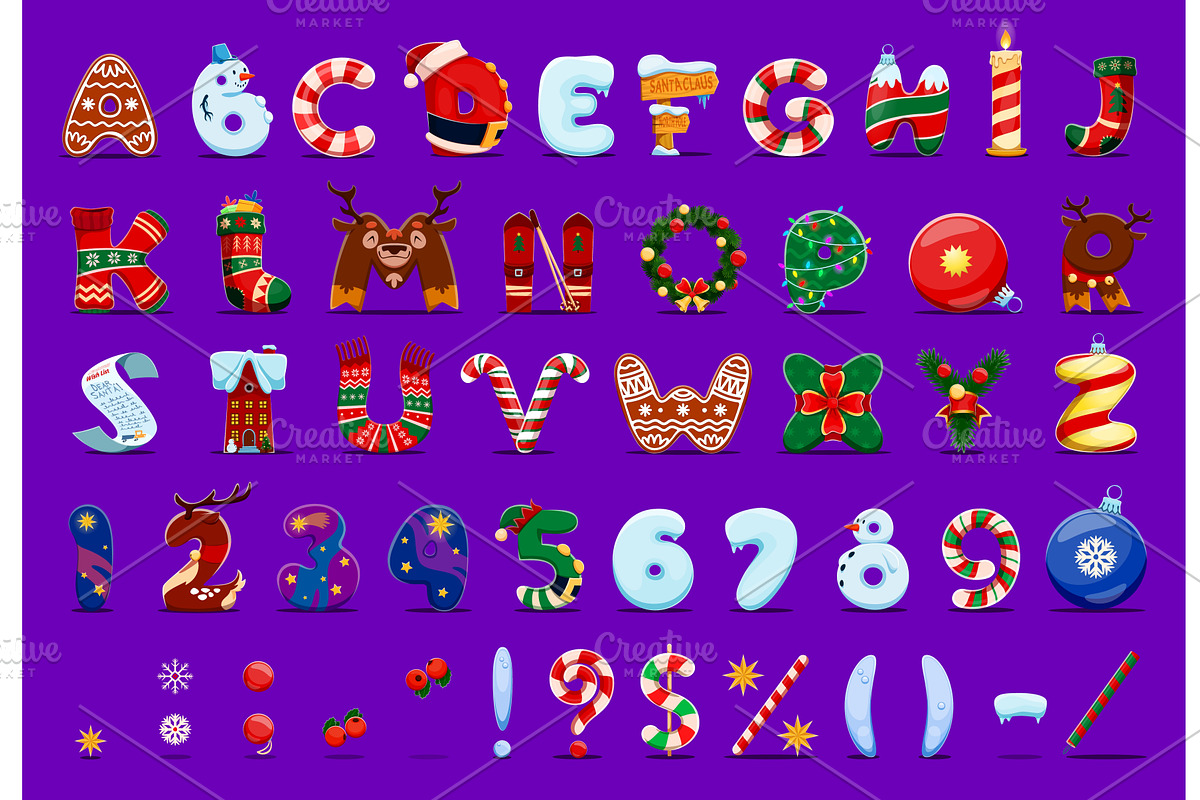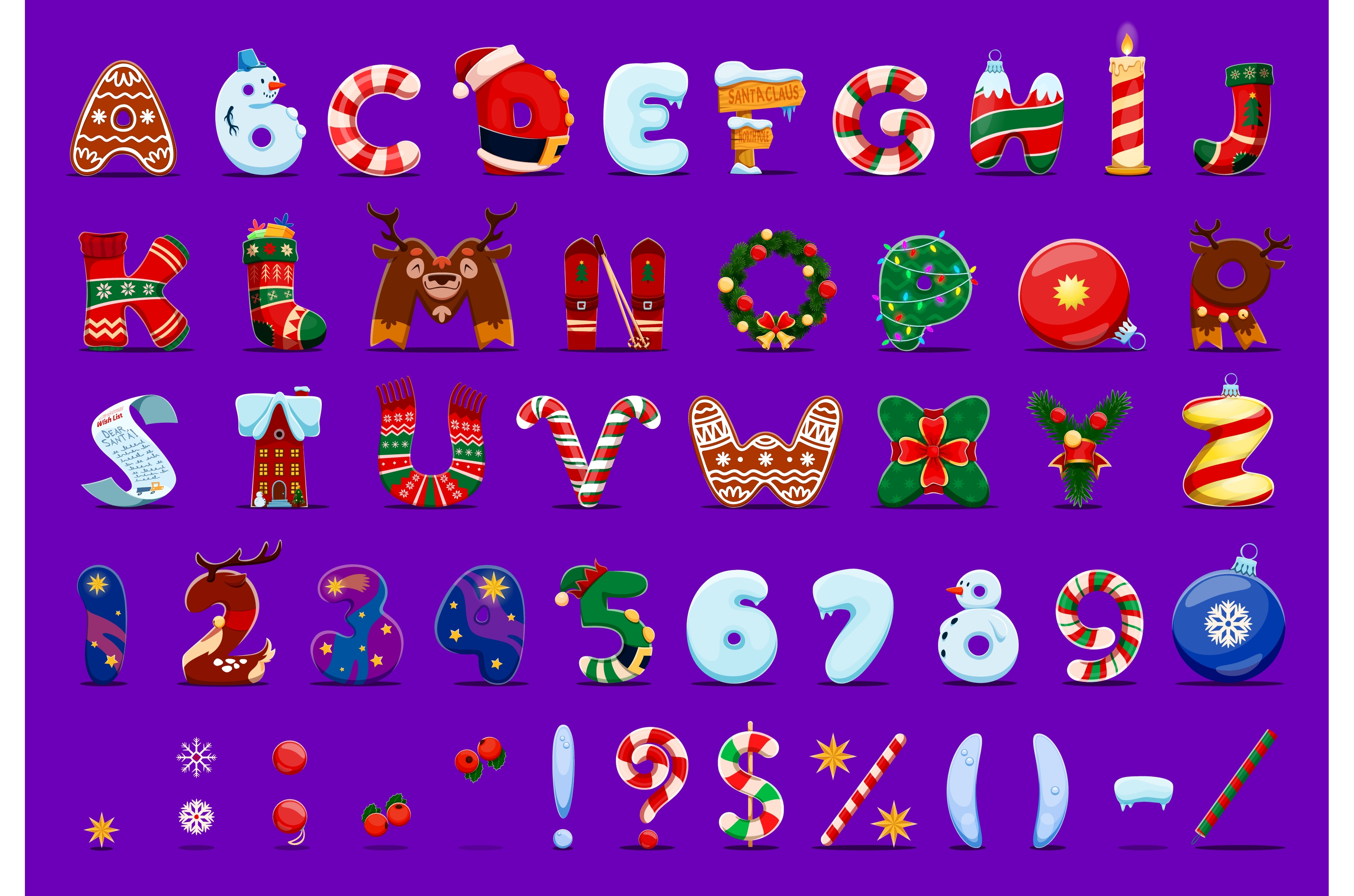
Merry Christmas font, xmas letters
Merry Christmas font, xmas alphabet letters and numbers, cartoon winter holiday type, festive typeface decorated with snowmen, garlands, candy canes, and holiday decorations, baubles and characters